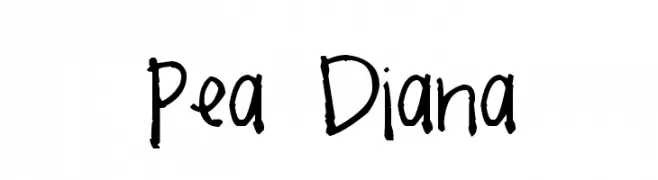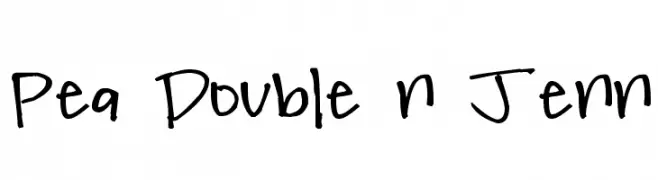
A whimsical, hand-drawn collection of playful doodles and illustrations.
A playful, handwritten font with dynamic strokes and a casual style.
A playful, handwritten-style font with tall, narrow characters and a whimsical appearance.
A playful, casual handwritten font with uneven strokes and a lively appearance.
A playful and casual handwritten font with a natural, flowing style.
A playful, handwritten font with bold strokes and a casual vibe.
A playful, informal handwritten font with a casual and friendly vibe.
A playful, casual handwritten font with a dynamic and lively feel.
A casual, playful handwritten font with fluid strokes and a dynamic style.
A playful, handwritten font with irregular, spontaneous strokes.